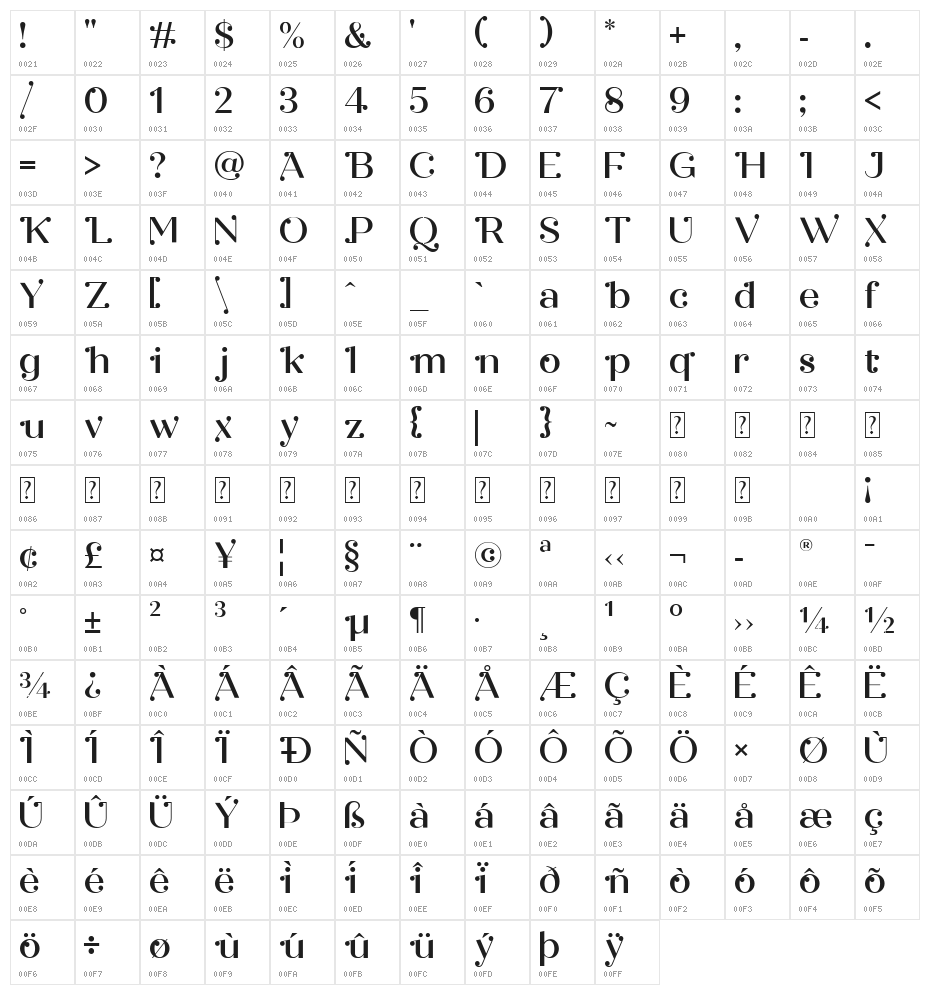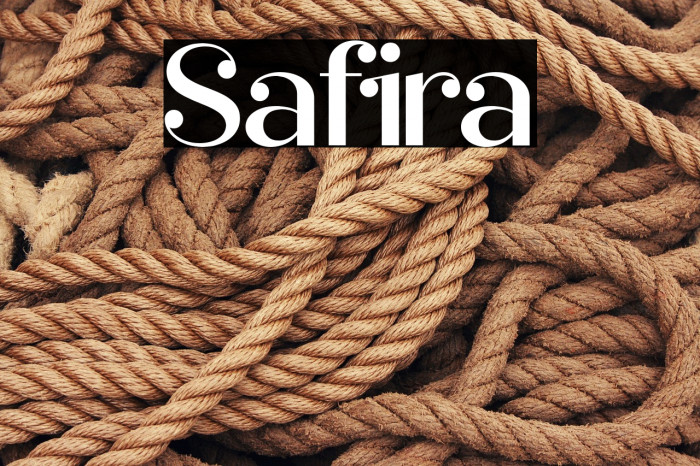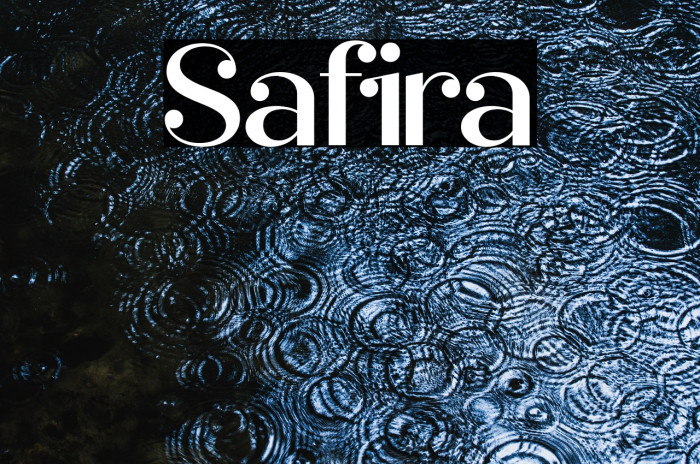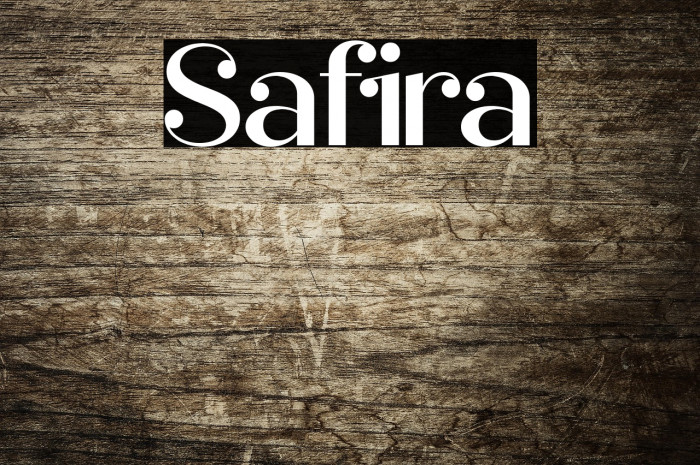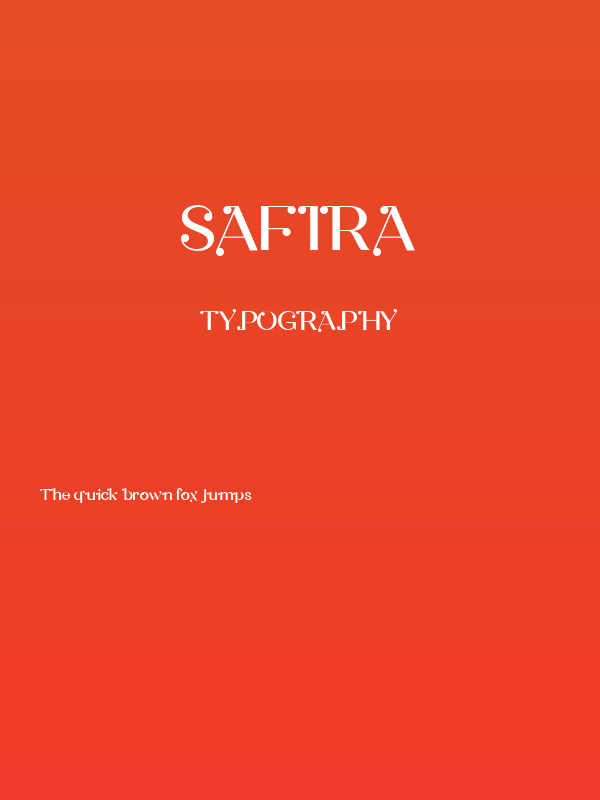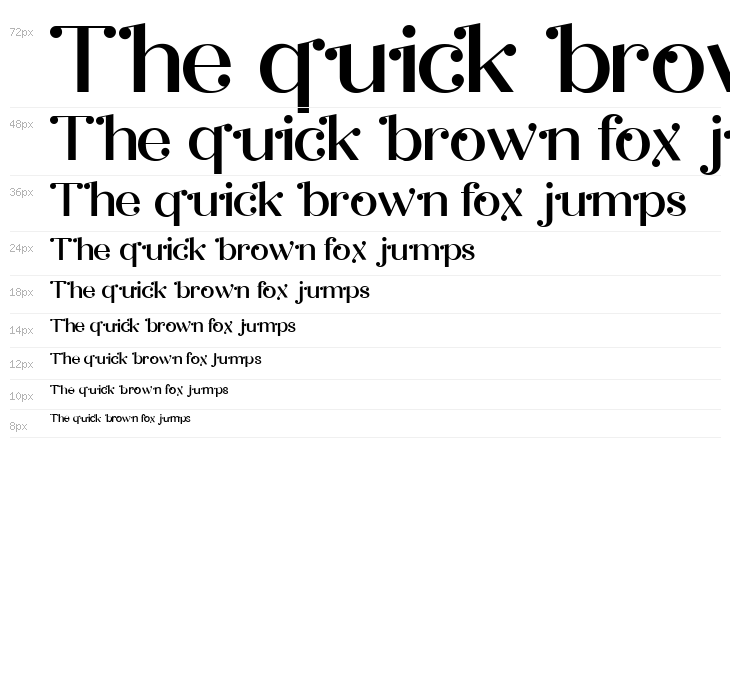
Safira Font
Safira Description
This font features a unique and playful design with distinct circular embellishments at the ends of strokes, creating a whimsical and decorative appearance. The characters are bold and have a high contrast between thick and thin strokes, adding to the visual interest. The uppercase and lowercase letters maintain a consistent style, with rounded terminals and a sense of movement. The numerals and special characters follow the same decorative theme, making this font suitable for creative and eye-catching designs.